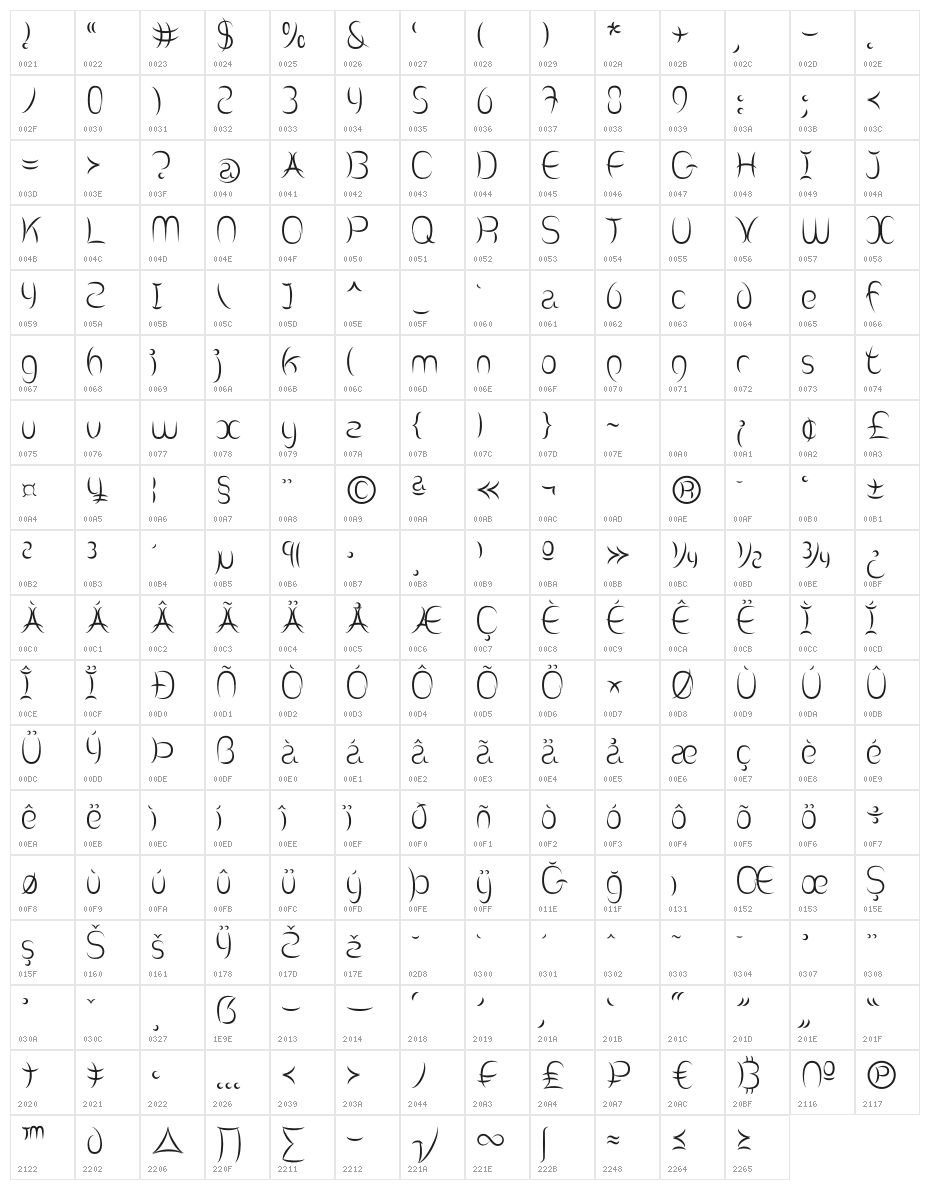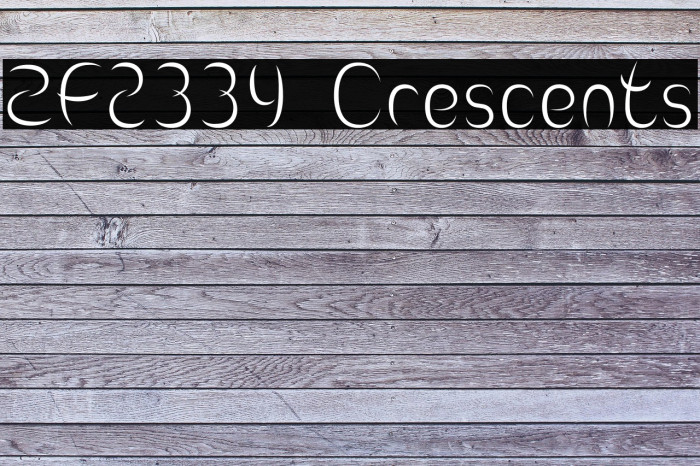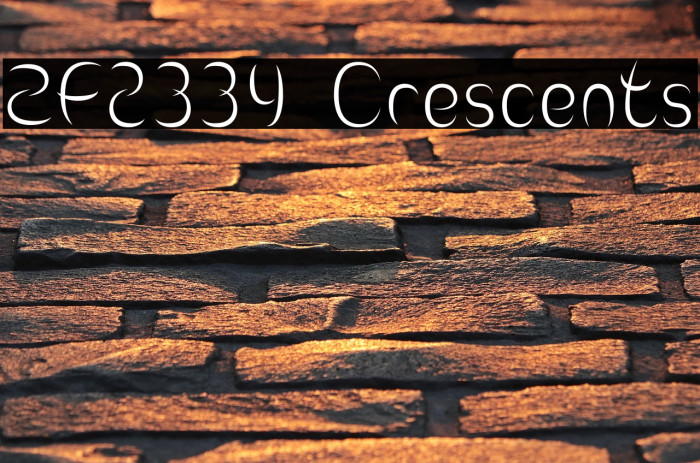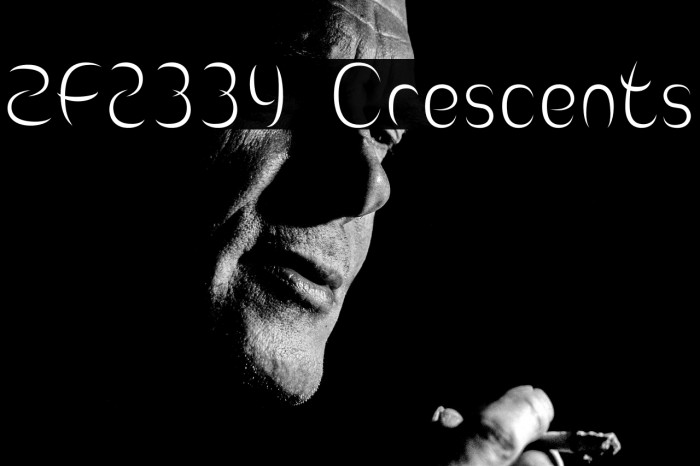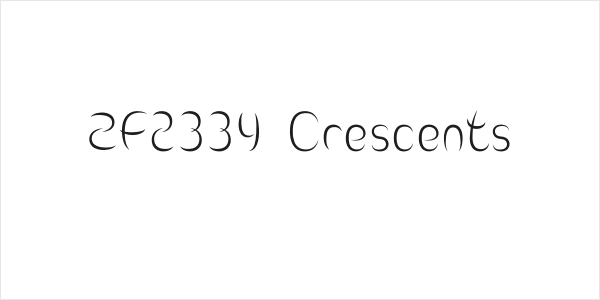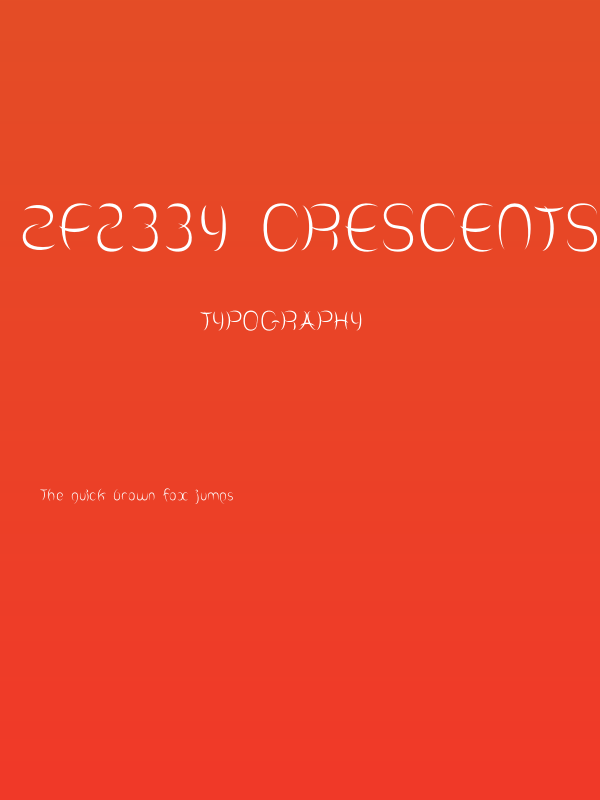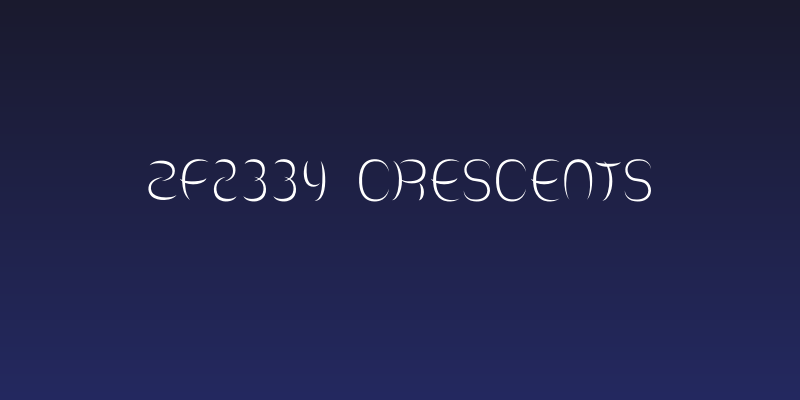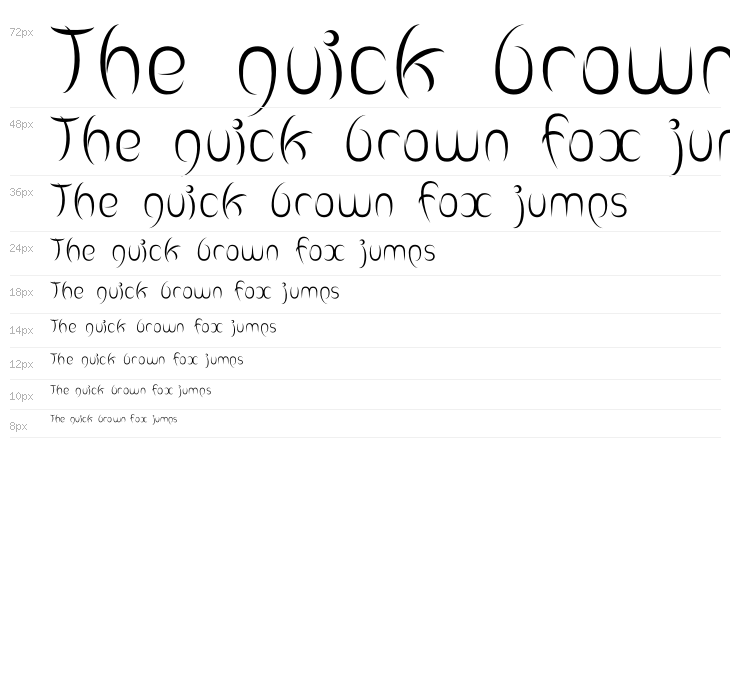
ZF2334 Crescents Font
ZF2334 Crescents Description
This font features crescent-shaped, highly decorative glyphs with a whimsical and ornamental appearance. Each character is constructed from curved, moon-like segments, creating a unique and playful visual effect. The style is unconventional and artistic, making it stand out for creative uses.
| Overall Style | Decorative, Whimsical, Artistic |
| Use Case | Logos, Posters, Headlines, Invitations |
| Proposed Projects | ChildrenΓ’β¬β’s books, fantasy posters, party invitations, branding for creative businesses, themed event materials. |